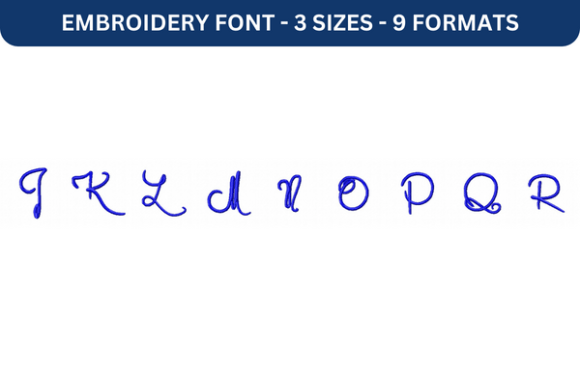
Marguerite Font Upper J to R
As an embroidery designer with years of experience, I’ve seen countless fonts and designs come and go. But when I stumbled upon the Marguerite Font Upper J to R, I knew it had potential for seasonal and holiday projects. This high-quality embroidery font is more than just a lettering tool—it’s a versatile asset that can elevate your handmade gifts, home decor, and apparel. Whether you're crafting for a small shop or a craft fair, this font offers a unique blend of elegance and versatility that fits well into any holiday collection.
First Impressions: A Seasonal Mood
The Marguerite Font Upper J to R immediately caught my eye with its decorative style and refined detail. It has a soft, flowing aesthetic that feels both elegant and approachable. The font carries a warm, nostalgic tone that makes it perfect for holiday and seasonal projects. Whether you're creating personalized gifts or festive home decor, this font adds a touch of sophistication without being too formal.
Its level of detail is impressive, with subtle flourishes that add character to each letter. This makes it ideal for items like embroidered patches, pillow covers, and even delicate baby clothes. The font’s design seems to evoke a sense of comfort and tradition, which aligns well with the emotional tone of many holiday products.
Real-World Use in Holiday Projects
As someone who regularly creates holiday-themed items, I’ve tested the Marguerite Font Upper J to R on various fabrics and projects. It works exceptionally well on sweatshirts, tote bags, and kitchen towels—items that are popular during the back-to-school and holiday seasons. The font’s size and spacing allow for clear, readable text, making it great for names, dates, or quotes.
For Etsy sellers and small shop owners, this font is a valuable addition to your digital embroidery file collection. It can be used in gift bundles, personalized items, and limited edition apparel. Its clean lines make it easy to match with different color palettes, and its adaptability means it can be used across multiple product types.
When it comes to craft fair displays, the Marguerite Font Upper J to R stands out. It looks beautiful on printed mockups and promotional graphics, helping to attract attention and generate interest. It also pairs well with other seasonal designs, allowing for cohesive branding and visual consistency.
Where to Use With Caution
While the Marguerite Font Upper J to R is highly versatile, there are some situations where it may not perform as well. For example, if you're working with small hoop sizes, the font might be too large or complex to fit comfortably. Similarly, tiny lettering could become distorted or unclear, especially on thick towels or dark fabric.
Layered details or dense stitch areas may also pose challenges. If you're using metallic thread or working on stretchy garments, the font's intricate elements could get lost or cause tension issues. Additionally, curved caps or items that require repeated washing may need extra care to ensure the embroidery remains intact.
Impact on Seasonal Appeal and Buyer Emotion
The Marguerite Font Upper J to R enhances the appeal of seasonal products by adding a personal and artistic touch. It helps create a sense of warmth and thoughtfulness, which is crucial for giftable items. Customers often look for something unique and meaningful, and this font provides that edge.
It also boosts customer trust and engagement. When buyers see well-crafted, personalized embroidery, they’re more likely to feel confident about their purchase. The font’s clean, professional look supports brand consistency, which is essential for small business owners and Etsy sellers looking to build a loyal customer base.
Practical Tips for Embroidery Designers
Before using the Marguerite Font Upper J to R in your projects, here are a few key tips to keep in mind:
- Test thread colors on both light and dark fabrics to ensure visibility and vibrancy.
- Check stitch density to avoid puckering or distortion on delicate materials.
- Confirm hoop size to ensure the font fits comfortably without stretching or distorting.
- Use proper stabilizer to prevent shifting, especially on stretchy or thin fabrics.
- Create realistic mockups to showcase how the font will look on different products.
- Review small details after stitching to catch any imperfections.
- Plan matching color palettes to maintain a cohesive look across your seasonal collection.
- Check Creative Fabrica product details and licensing before selling finished products.
By following these guidelines, you can maximize the effectiveness of the Marguerite Font Upper J to R and ensure your holiday products stand out in a competitive market.
Conclusion: A Must-Have for Seasonal Creations
The Marguerite Font Upper J to R is a powerful tool for anyone involved in holiday embroidery, whether you're an Etsy seller, a small business owner, or a craft enthusiast. Its elegant design, versatility, and emotional appeal make it ideal for a wide range of seasonal projects. From personalized gifts to home decor, this font adds a touch of class and creativity that resonates with customers.
With careful planning and execution, the Marguerite Font Upper J to R can become a cornerstone of your holiday collection. It’s a reminder that even the smallest details can make a big difference in the success of your handmade products. So, if you're looking for a font that combines beauty, functionality, and seasonality, this one is definitely worth considering.